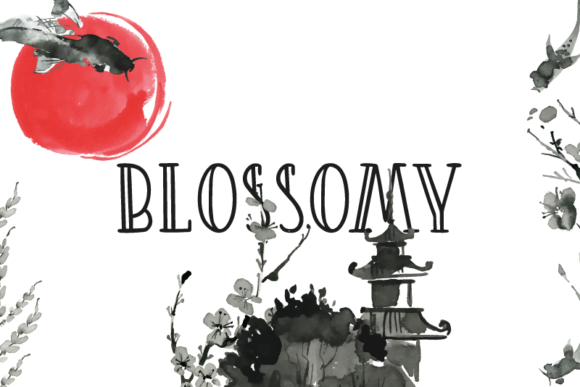
Blossomy Font
Font Name : Blossomy Font
Author : CraftBundles
Unleash the elegance of Blossomy Font, a captivating and adaptable display font that will leave a lasting impression on your designs. Blossomy is more than just a font; it's an artistic masterpiece that will transform your words into stunning visual expressions.
Crafted with meticulous attention to detail, each character in Blossomy exudes a timeless charm that is both classic and contemporary. Its carefully balanced strokes and harmonious curves create a visual symphony that dances across the page, drawing the eyes of readers and captivating their imaginations.
Blossomy's versatility knows no bounds. Whether you're crafting mesmerizing book titles, designing eye-catching logos, or creating enchanting invitations, this font will elevate your creations to new heights. Its innate ability to adapt to any project, from playful and whimsical to sophisticated and elegant, makes it an indispensable tool in the hands of creative professionals.
Imagine the impact of your book title rendered in Blossomy's striking serif characters. The delicate flourishes and graceful curves will hint at the captivating story within, enticing readers to delve into its pages. Or envision your logo adorned with Blossomy's refined elegance, conveying a sense of professionalism and trustworthiness that sets your brand apart from the competition.
With Blossomy at your disposal, the possibilities are endless. Its timeless beauty and versatility will add a touch of sophistication and charm to any project you undertake. Embrace the allure of Blossomy today and unlock a world of creative possibilities.